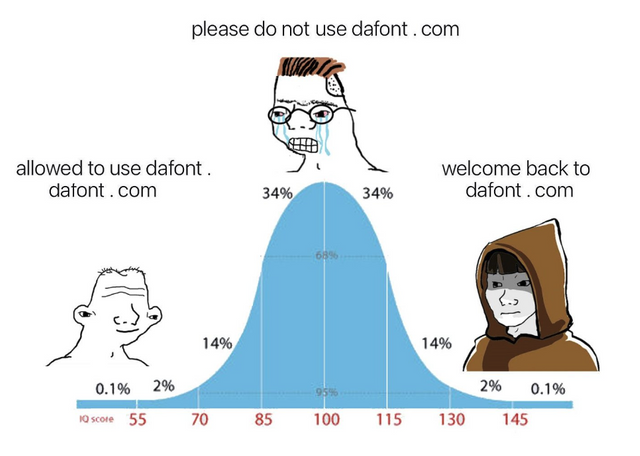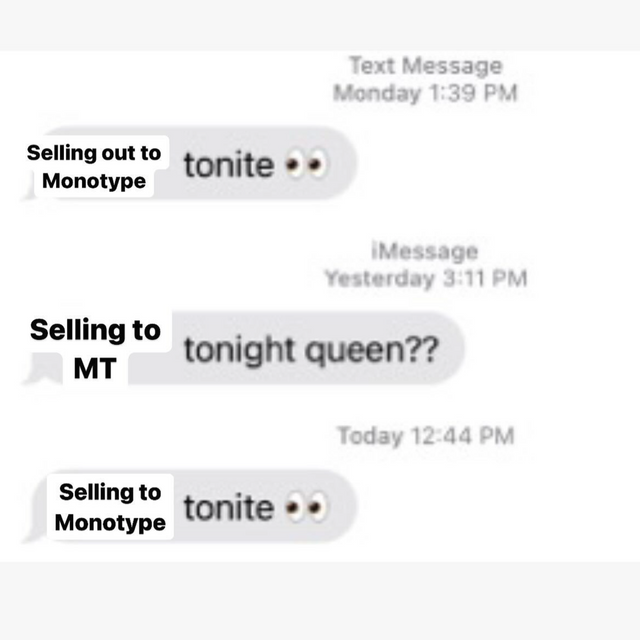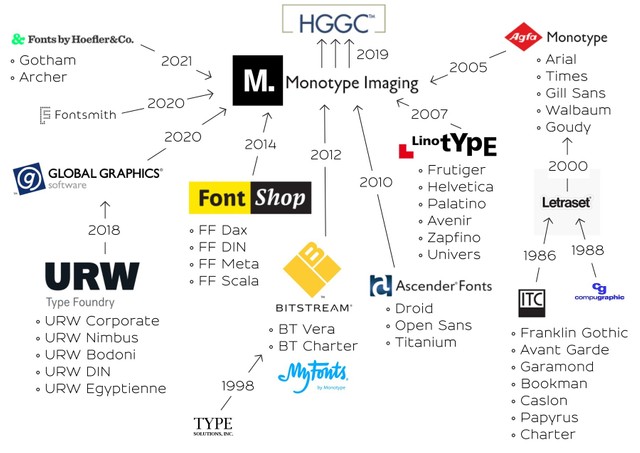
Erik Carter on the Monotype monopoly, DaFont.com, and upending industry models —
This is why we’re launching a new guest takeover series, and I always hoped that NY-based graphic designer and art director Erik Carter would write the first one. He said yes <3
Erik is a breath of fresh air; in his own words, his Design Harder substack covers “Typography. Color. Capitalism. Chaos” and, in the words of David Chathas, his social media presence is a “strange blueprint” for what “contemporary Discourse on Design and Culture looks and sounds like on the internet.” Below, Erik shares his perspective on what’s happening in the type world right now — plus some thoughts on where things might be heading next. Over to Erik.
The Future of Type
by Erik Carter
If you were born with the gene that allows you to draw letters, I salute you.
I am not a type designer. I find the work difficult, repetitive and tedious, and the required skills above my pay grade. I am, however, someone that uses typefaces for a living. As a graphic designer, I’m often tasked with choosing a font for a book cover, layout, or animation. And as a person who doesn’t draw the typefaces themselves, I act more as a typographic art director, picking and choosing the best font for the format, taste with appropriateness, balancing legibility with form. I am also someone who uses the terms font and typeface interchangeably, because we are now in the year 2024, and the distinction holds far less meaning than it did in the days of metal type.
So, from my completely subjective perspective, what’s the state of type design as someone who gets paid to use fonts? Let’s take a survey of the landscape of the scene by looking at what fonts are being drawn and why. What problems are infecting typography, and where should type design go next?
Pt. 1: Comic Sans
Most professional type foundries these days stick to the standard categories of fonts: the sans, the serifs, the monospaces.
Designers will spend years of their lives honing in on the details of a single family, hoping for a hit like Helvetica, and end up drawing something that just looks like… Helvetica. I find the differences between Arial and Helvetica minimal, Univers to be barely different, and Neue Haas Grotesk to be kissing cousins to Neue Haas Unica.
In the type design world the narcissism of small differences runs deep, and if I had a quarter for every time a typeface designer drew a neo-grotesque, I would be a rich man. The market loves milquetoast (just look at the best-selling fonts on MyFonts) and you can’t fault type foundries for playing this game, but enough is enough, and the sans serif well has run dry. However, it is a two way street, as graphic designers love our simple sans minimalism (and our clients do too!) but rarely do you see type foundries pushing forth new aesthetic futures in place of basic fonts for basic people.
If you are looking for the true avant-garde of typography, I would not recommend traveling to your favorite foundry, or to the portfolio site of a recent graduate from KABK, but instead to a little website called Dafont.com. The most expressive typographical excursions can be discovered here, a place where legibility is pushed to the brink and corporate logo bootlegs run free.
This isn’t to say that there aren’t hideous crimes lurking on the website — most notably on the offensive “Foreign Look” section, which includes fonts such as “Chinese Dragon” and “Arabic Magic” as well as the highly regrettable “Sexy” section — but there are real moments of beauty and expression that exist well outside the boundaries of rules and taste. It arguably has the best collection of free pixel fonts on the net, a glorious collection of poorly drawn corporate logo bootleg fonts, groovy fonts, fire fonts, and ice fonts. There’s something for everyone over at Dafont.com and it’s low bar for entry has allowed for typographic expression to flourish on the web.
Elizabeth Goodspeed @domesticetch (with idea by @noahbakerstudio)
Pt. 2: Bank Gothic
There is no greater threat to the typography industry than Monotype Imaging Holdings Inc, or Monotype for short.
Despite its name, Monotype is a type foundry only in brand and exists more as an investment company owned by private equity firm HGGC. Its modus operandi in recent years has become buying up smaller type foundries in order to seemingly increase profits and future investment opportunities, and less so to draw letters and push design forward.
The fact that Monotype itself is a monopoly by name is certainly a bit on the nose. Every few months it feels like we see a new headline that yet another and another beloved independent foundry has sold its stock in fonts, shutting down its operations and cashing in.
Each time it is heartbreaking. A sale to Monotype usually means that there will be no new typefaces produced, as another branch of the tree of typography is cut off, with the foundry’s typefaces joining up with the biggest corporation in the business.
The real danger here with Monotype devouring all these foundries is that if HGGC ever finds Monotype to be unprofitable, they could simply sell it to a lesser venture capital company, or even worse, discard it all, erasing a whole era of typographic history. In fact, as recently as late last year HGGC explored selling Monotype for a whopping $4 billion, a comically large sum that would dwarf the valuation of any other type foundry in existence. Once Monotype is sold (and it likely will) the future of the biggest library of typefaces in existence hangs in the balance, as acquisitions rarely ever end well for the companies that get traded like commerce instead of art.
@glukfonts via @typographica
Increasingly, it feels like there are few type foundries left that haven’t been bought and sold for parts and scraps to Monotype’s font-eating mega-machine. Other recent examples of its acquisitions include Jonathan Hoefler’s selling of Hoefler & Co., home to numerous typefaces drawn by Tobias Frere-Jones, which he did allegedly without even informing his employees beforehand. In 2014, Monotype purchased FontShop, one of the last large independent digital font retailers (they already owned MyFonts), from Erik Spiekermann in another huge blow to the online typographic ecosystem.
That isn’t to say there isn’t resistance against this threat. As the specter of Monotype has grown over the type design community, there are those who have tried to shine the light of typographic resistance.
“I’m sure as fuck not letting Monotype anywhere near our fonts,” stated Kris Sowersby of Klim Type Foundry, home to some of the best typefaces of recent years. One way of viewing the state of things was stated by luminary designer Tobias Frere-Jones who said: “Imagine if 70% of movie studios and TV production companies were owned by the same parent company. What do you think we would be watching?”. More bluntly, Frere-Jones Type’s Nina Stössinger described Monotype as a “kraken eating this industry”.
Monotype’s former UK type director and celebrated Lebanese type designer Nadine Chahine laid it out plainly: “It’s the future of our industry at stake and it’s never been this bad. With every new acquisition, it gets worse for the rest of us.” I salute these rebels, and hope that they stand strong. I pray the day never comes when Dinamo, Commercial Type, Grilli Type, or any other of the remaining typographic luminaries fall victim to Monotype’s alluring offer of cash for fonts.
@abcdinamo
Pt. 3: The Mr. Shrimp Font
Beyond the monopolies and the monotony, the future of typography is not all doom and gloom, and there is boundless beauty being produced beneath the surface.
The best type foundries do not rely on the basic sans serifs to lay the foundation of their business but also stretch the limits of aesthetics with dazzling display type rooted in a strong understanding of form. Think the bravery of DaFont’s aesthetics married to the skills of Hermann Zapf.
Swiss foundries like Lineto are the masters of this, releasing typefaces that speak both to the past and the future, such as Norm’s LL Replica with its cut corners, or the original LL Brown by Aurèle Sack with its backward slant. Dinamo’s typefaces also come to mind with examples such as ABC Favorit Lining, a straightforward sans with a twist — an underline marking the bottom of the entire typeface. And My-Lan Thuong’s Carta Nueva designed for Sharp Type breaks the rules of baseline typography, asking its users to set its forms upward and downward, not just right and left, calling to languages outside of basic Western forms.
Overall, I’m less excited about variable typography technology, as I think designers should be confident in their choices of weight, rather than twiddling the nobs with uncertainty. I’m not saying that there aren't interesting excursions happening with these variables, such as seen with Andy Clymer’s Tilt, a variable font that allows its users to rotate the orientation of the glyphs, bending in ways that letters have rarely bent before. The Vectro Type Foundry is also leading the charge in experimental variable typography, with brave fonts such as the three dimensional WHOA or the gloriously groovy Kablammo — a wonderful variable update of 1995’s misunderstood Jokerman.
On the business side of things, there are also exciting developments that aim to upend the traditional model of hoping for a hit typeface or a big licensing deal to support a foundry. Future Fonts has a brilliant model of selling typefaces in progress that allows for type designers to try out new weird things without the heavy time investment involved in drawing an entire font family, all while letting us graphic designers get in on the ground floor for cheap. My favorite typefaces from one of my favorite foundries, Commercial Type, are not found on its main site, but in its Vault, a repository of unreleased typefaces and experimental flights of fancy, all in various states of completeness. Dinamo also has an Early Access program where typefaces are available before publishing as well as hugely discounted font packs for students.
I urge type foundries to take this route, as we ignorant designers can rarely see the flaws that type designers see with an uncompleted font (and kerning is one of the rare tangible skills that we actually have). So type foundries, please, open the gates to all your unloved typographic children, and let the graphic designers run wild with your letterforms.
Conclusion: Impact
Every time it feels like everything has been done in typography, a designer comes along and shocks us with the new, and shows us what the future holds for fonts. I hope that this piece serves as a call to action for every type designer who’s afraid of showing off an aesthetic muscle that the market doesn’t want them to flex.
The future of typography is not old, white men chained to the rules of form pushing sans serifs for sales pitches, but in brave new aesthetics that push against legibility and add friction. I’m hopeful about the future of typography, as long as it is not snuffed out by the megavillain Monotype and those who sell out to them.
Now more than ever, it feels like we are in an aesthetic renaissance that calls back to the dawn of digital type pioneered by foundries such as Emigre and LettError. I say, go forth brave young typographers with your hunched backs and a keen eye for spacing, draw us new fonts and give us hope, because now more than ever, we need it. The future of typography’s so bright, I gotta wear shades.